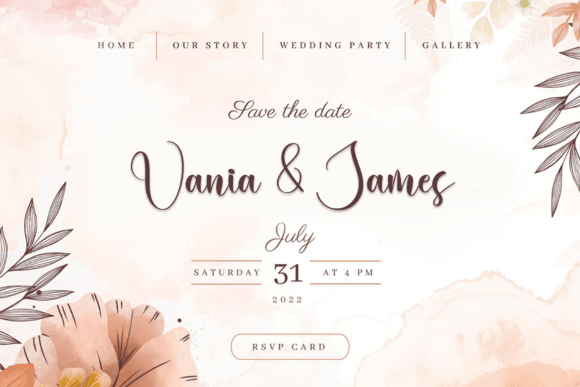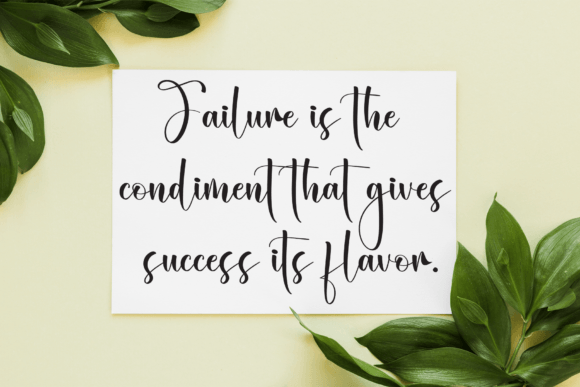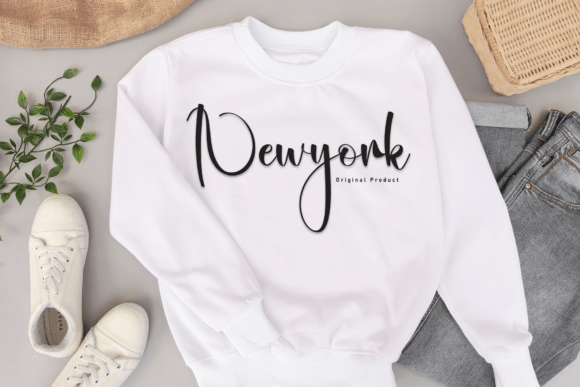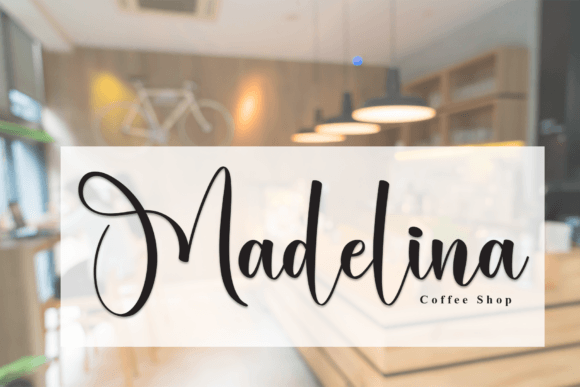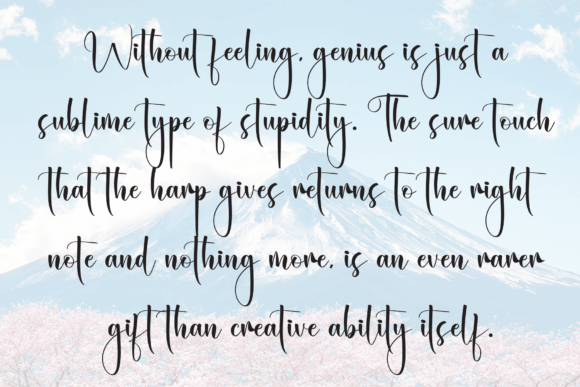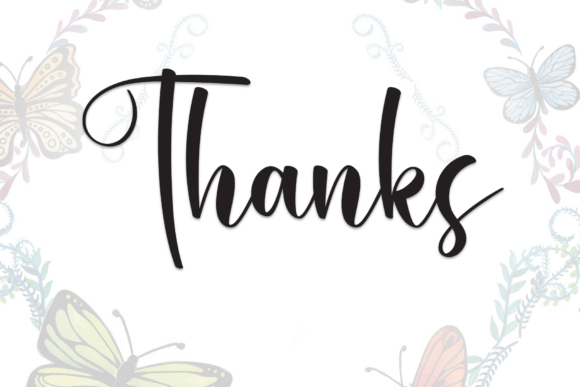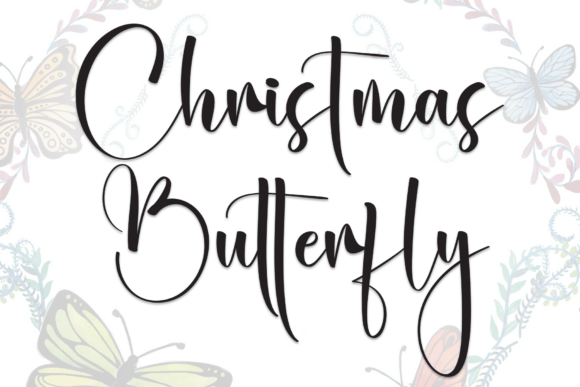
Introducing Christmas Butterfly Font: A Delicate and Elegant Handwritten Masterpiece
Are you on the hunt for a font that embodies the magic of the holiday season? Look no further than the Christmas Butterfly Font, a delicate and elegant handwritten font that’s sure to captivate your audience. With its distinct and well-balanced letters, this font is a masterpiece that will make your designs shine. In this article, we’ll dive into the world of Christmas Butterfly Font, exploring its features, versatility, and uses, as well as provide tips and inspiration for designers and crafters.
The Story Behind Christmas Butterfly Font
Christmas Butterfly Font is a carefully crafted handwritten font that’s designed to evoke the whimsy and wonder of the holiday season. Its creator has poured their heart and soul into perfecting every letter, ensuring that each one is a beautiful representation of the festive spirit. The result is a font that’s both elegant and playful, making it perfect for a wide range of design projects.
Key Features of Christmas Butterfly Font
- Delicate and Elegant: Christmas Butterfly Font boasts a delicate and elegant style that’s perfect for creating sophisticated designs.
- Handwritten: This font is a genuine handwritten masterpiece, with each letter carefully crafted to convey a sense of personality and charm.
- Distinct and Well-Balanced: The letters in Christmas Butterfly Font are distinct and well-balanced, making it easy to read and understand.
- Incredibly Versatile: This font is incredibly versatile, making it suitable for a wide range of design projects, from holiday cards and invitations to branding and packaging.
Uses for Christmas Butterfly Font
Christmas Butterfly Font is a versatile font that can be used in a variety of design projects, including:
- Holiday Cards and Invitations: Create beautiful holiday cards and invitations that will make your loved ones feel special.
- Branding and Packaging: Use Christmas Butterfly Font to add a touch of elegance and sophistication to your branding and packaging.
- Social Media Graphics: Create eye-catching social media graphics that will help your business stand out during the holiday season.
- Digital and Print Designs: Use Christmas Butterfly Font in digital and print designs, such as flyers, brochures, and posters.
Tips for Using Christmas Butterfly Font
To get the most out of Christmas Butterfly Font, here are a few tips to keep in mind:
- Pair with Other Fonts: Experiment with pairing Christmas Butterfly Font with other fonts to create a unique and eye-catching design.
- Use in Combination with Images: Use Christmas Butterfly Font in combination with images to create a visually appealing design.
- Experiment with Colors: Don’t be afraid to experiment with different colors to find the perfect combination for your design.
Whether you’re a designer or crafter, Christmas Butterfly Font is sure to inspire you to create something magical. Here are a few ideas to get you started:
- Create a Holiday Card Series: Use Christmas Butterfly Font to create a series of holiday cards that showcase your design skills.
- Design a Festive Website: Use Christmas Butterfly Font to create a festive website that’s perfect for the holiday season.
- Make a Holiday Planner: Use Christmas Butterfly Font to create a holiday planner that’s both functional and beautiful.